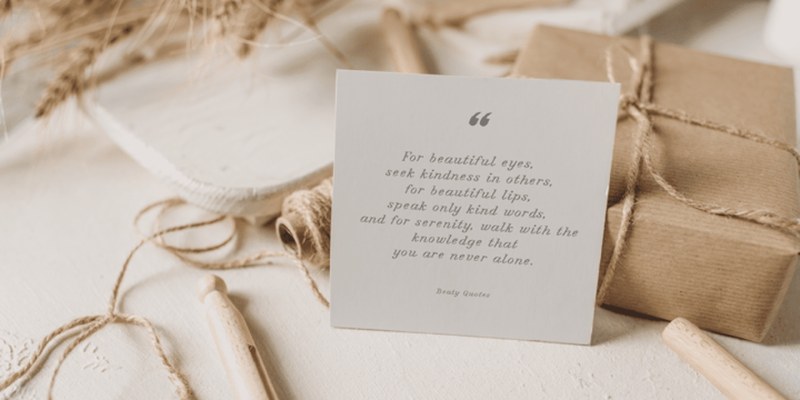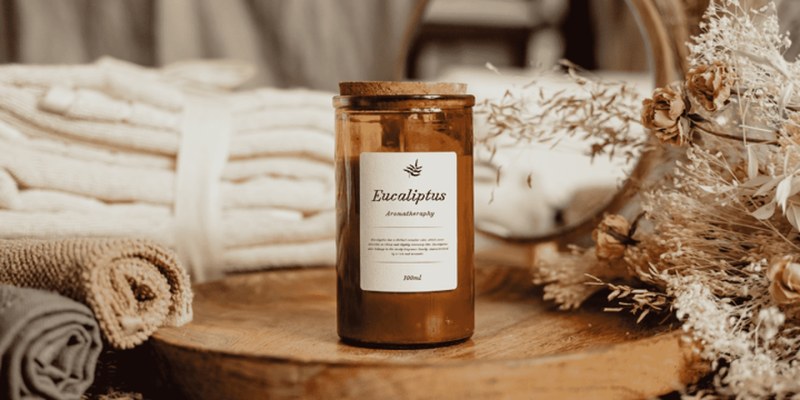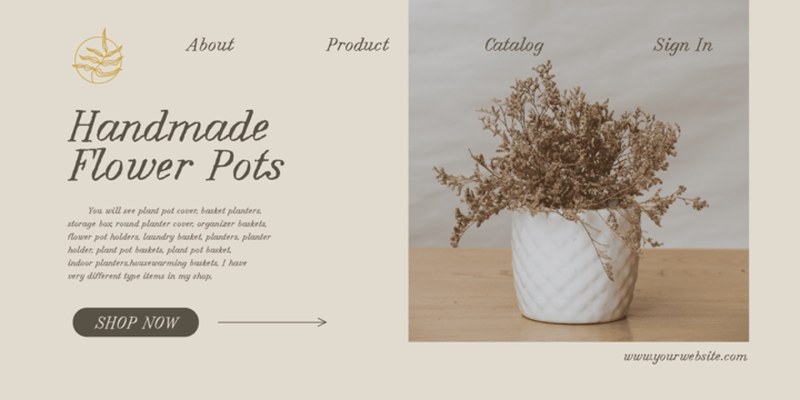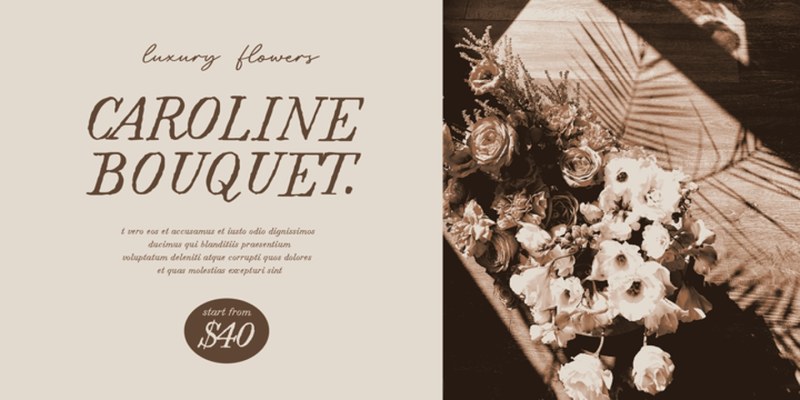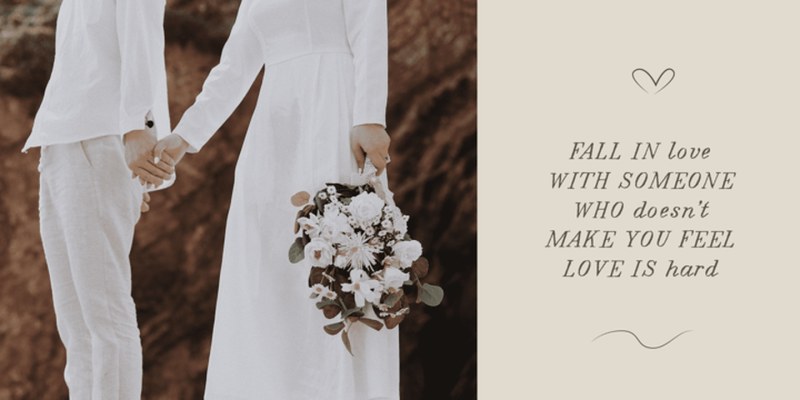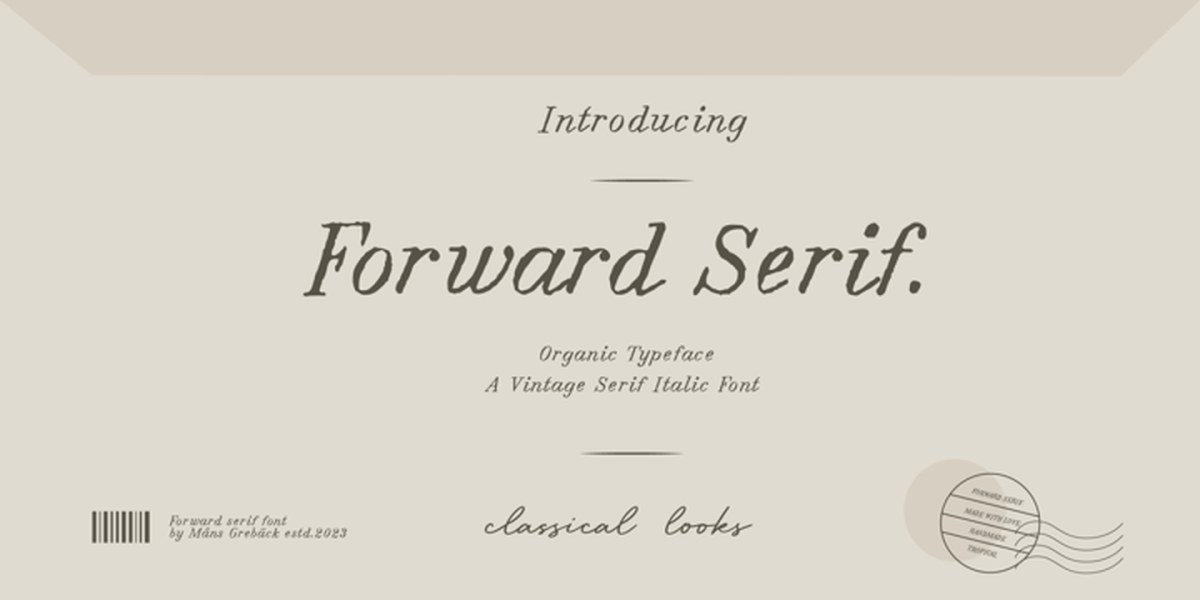
Forward Serif Font Family
Forward Serif is a rough and classic typeface. This light serif font with an expressive movement gives any project the attention it deserves. Use it for a vintage logotype or headline to give your work that genuinely traditional look. The Forward Serif family consists of four high-quality fonts: Regular, Upright, Bold and Upright Bold.
The font is built with advanced OpenType functionality and has a guaranteed top-notch quality, containing stylistic and contextual alternates, ligatures and more features; all to give you full control and customizability.
It has extensive lingual support, covering all Latin-based languages, from Northern Europe to South Africa, from America to South-East Asia.
It contains all characters and symbols you’ll ever need, including all punctuation and numbers.
Where Forward Serif Font Family works best
Forward Serif Font Family gives long-form text a classic, trustworthy rhythm — ideal for magazine spreads, annual reports and book interiors.
Pair Forward Serif Font Family with generous letter-spacing for wordmarks in fashion, hospitality, wine and jewellery branding.
Use Forward Serif Font Family for slide titles in Keynote, PowerPoint or Google Slides to add authority without looking dated.
What is Forward Serif Font Family good for?